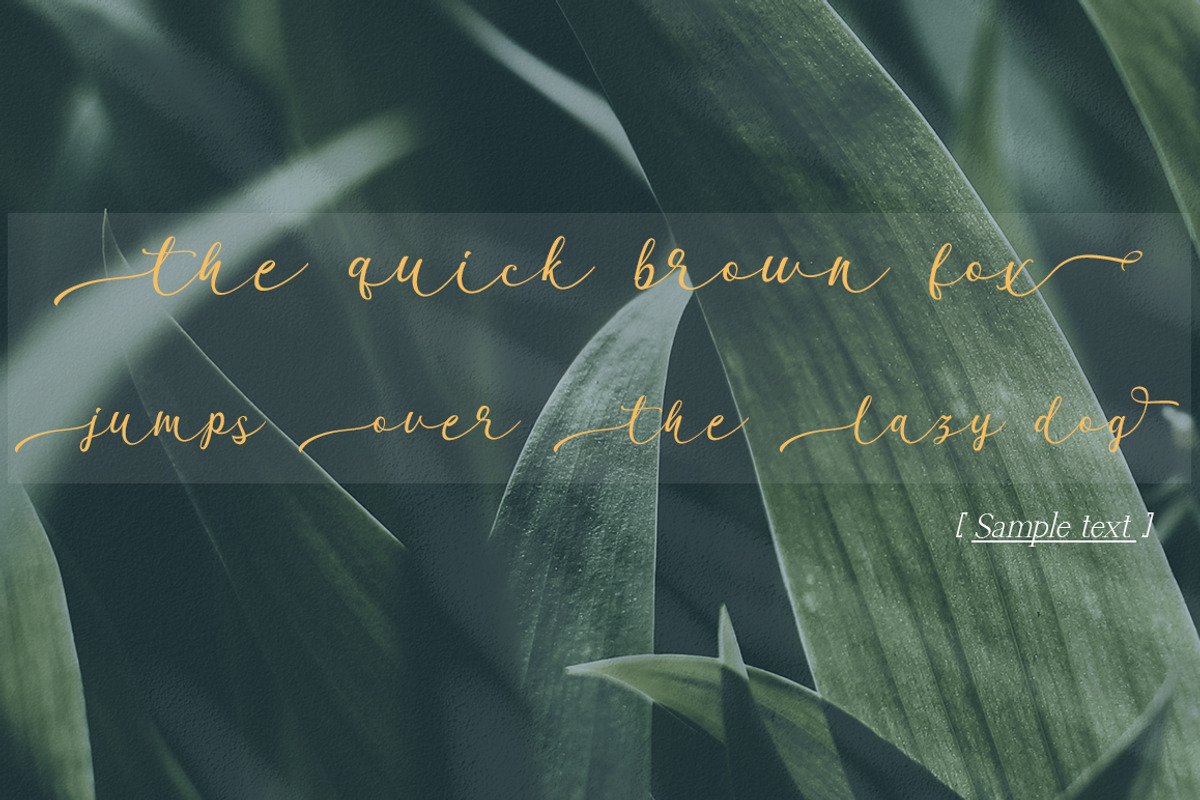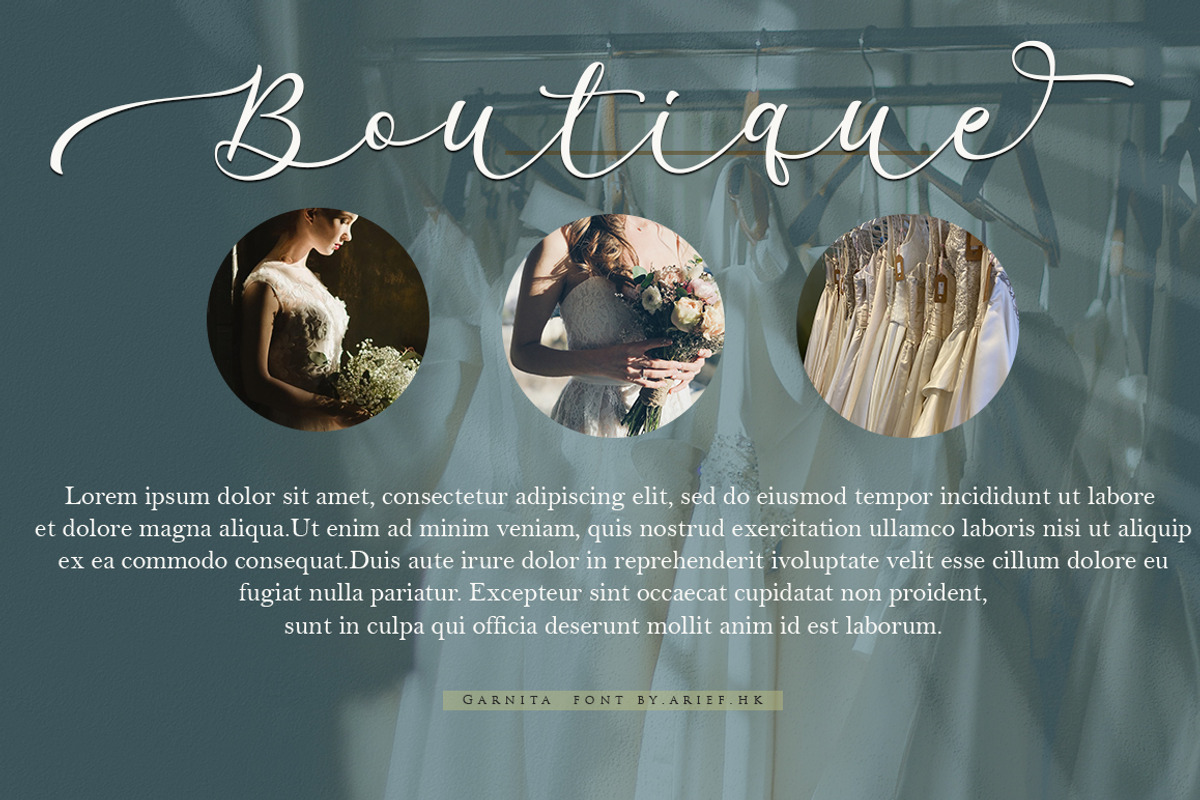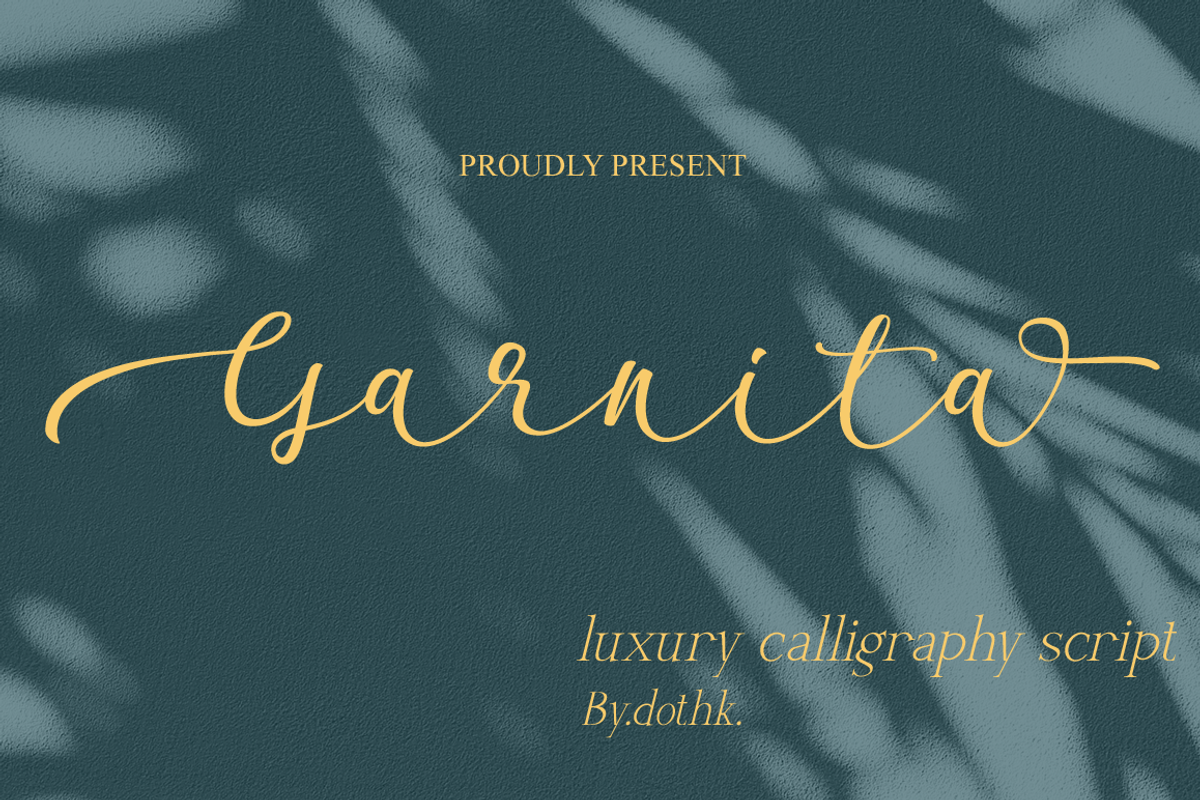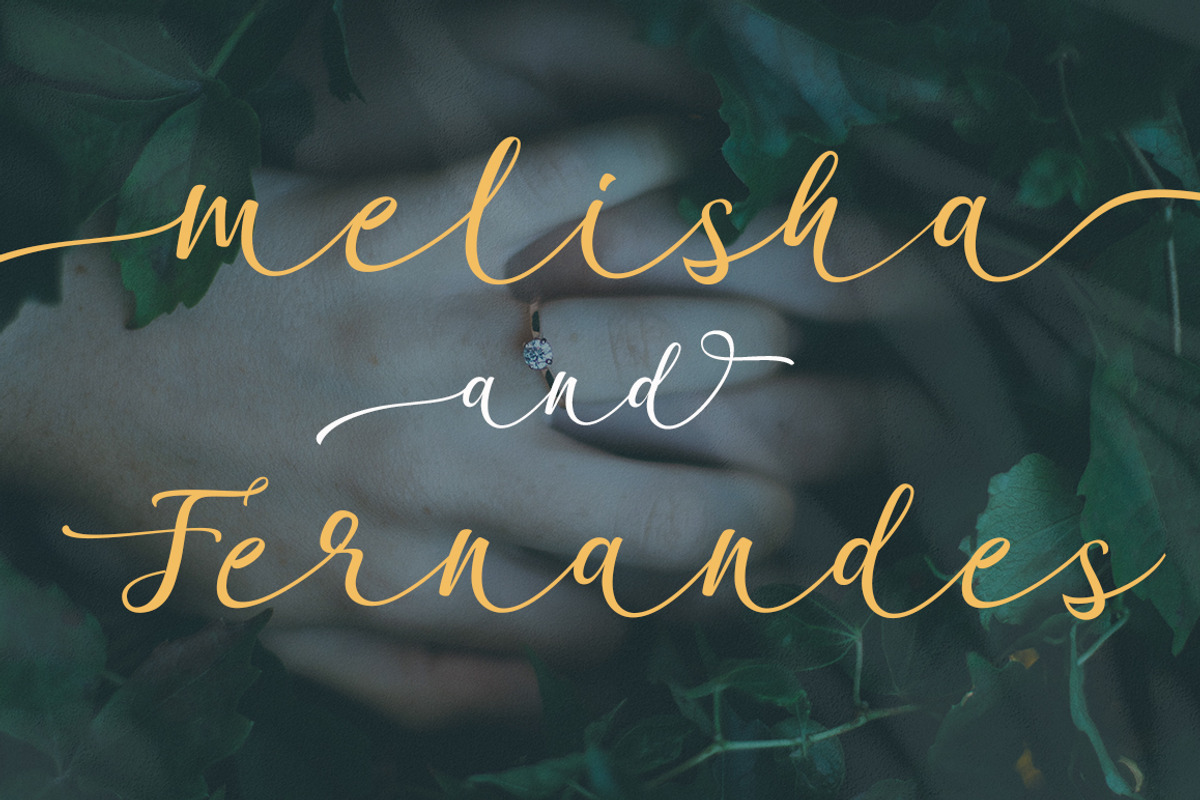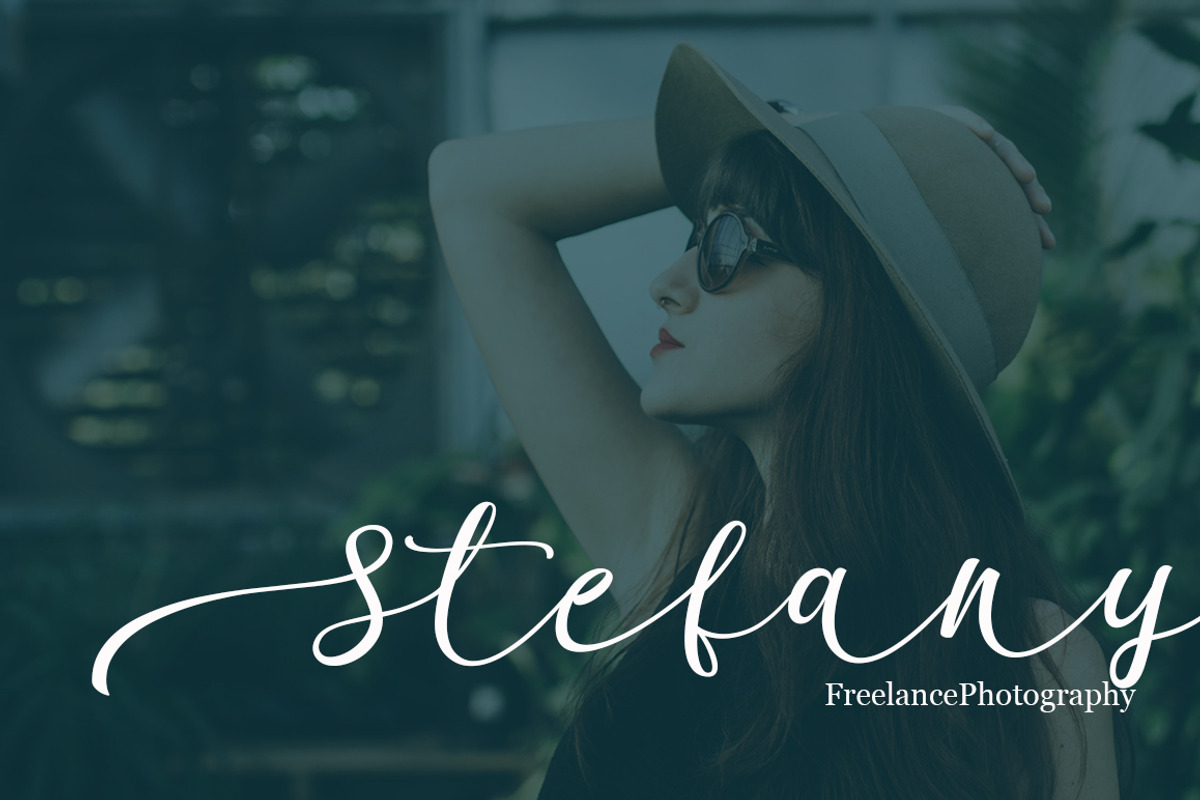
Garnita Script
Garnita Script is a modern calligraphy font with the current handwriting style, this font is perfect for branding, wedding invites, magazines, mugs, business cards, quotes, posters, and more, you can try it first if you want to buy this font. Garnita Script is equipped with 364 glyphs. and by having many of these glyphs there will be able to choose the letters according to your likes, lots of variations and options for each letter, so you can customize your design choices. with pleasure and happiness, in this font package you will get: Garnita Script Regular TTF to use a variety of flying machines, you need a program that supports OpenType features such as Adobe Photoshop Cs / Adobe Photoshop CC, Adobe Illustrator CS / Adobe Illustrator CC, Adobe Indesign, and Corel Draw and many more programs that support OpenType. If you do not have a program that supports OpenType, you can access all the alternate glyphs using Font Book (Mac) or Character Map